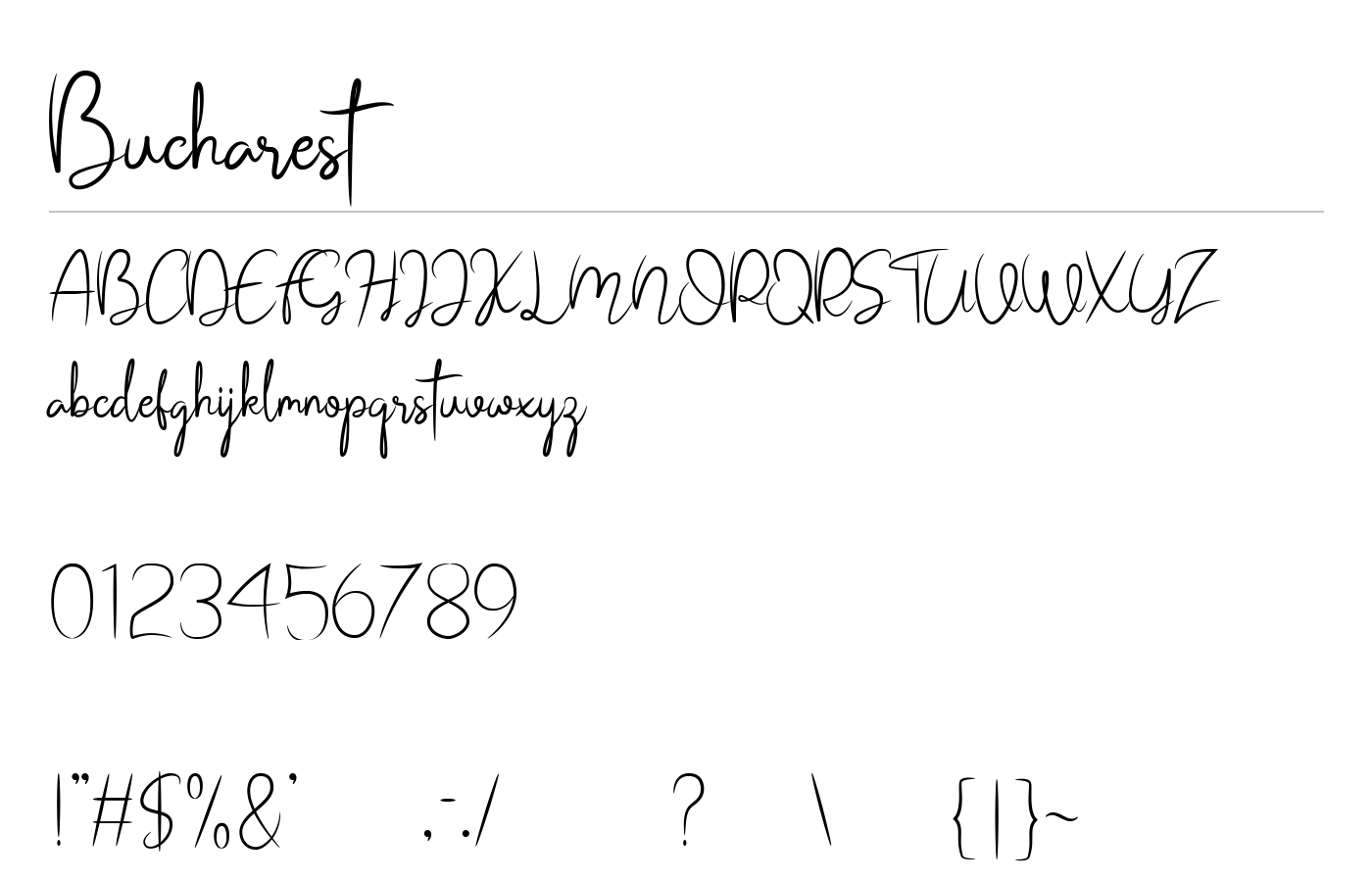
Bucharest is a delicate, handwritten script font characterized by its tall, slender letterforms and elegant, flowing strokes. It features a casual yet refined style, making it perfect for creating a personal, sophisticated feel in branding, invitations, or lifestyle projects. Its light weight and airy spacing give it a graceful and approachable personality that works well for creative headlines and decorative text.
Bucharest Font